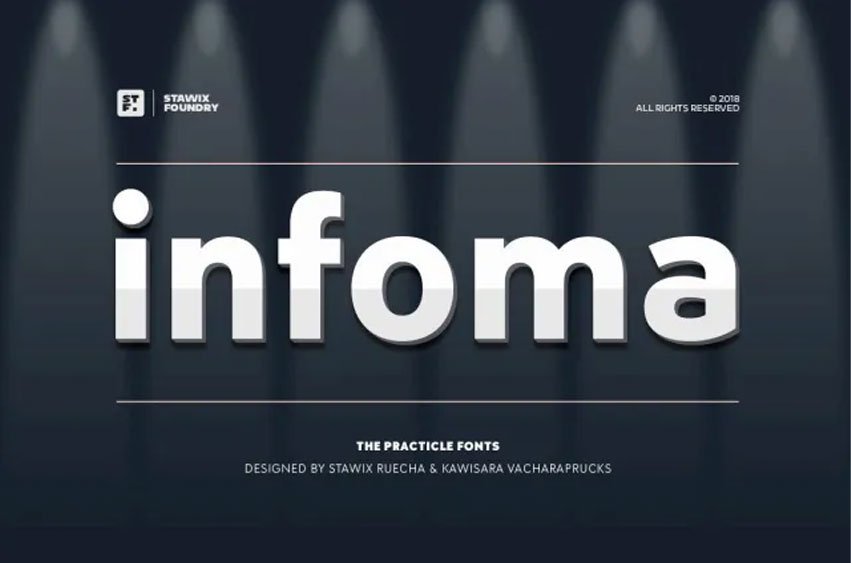
Infoma Font is designed based on simplicity which allows Infoma to perform flawlessly in numeroius design options.
Infoma consists of 18 styles from Line to Ultra, supporting many OpenType features, such as tabular numerals, inferiors & superiors, numerators & denominators, fractions, ligatures etc.